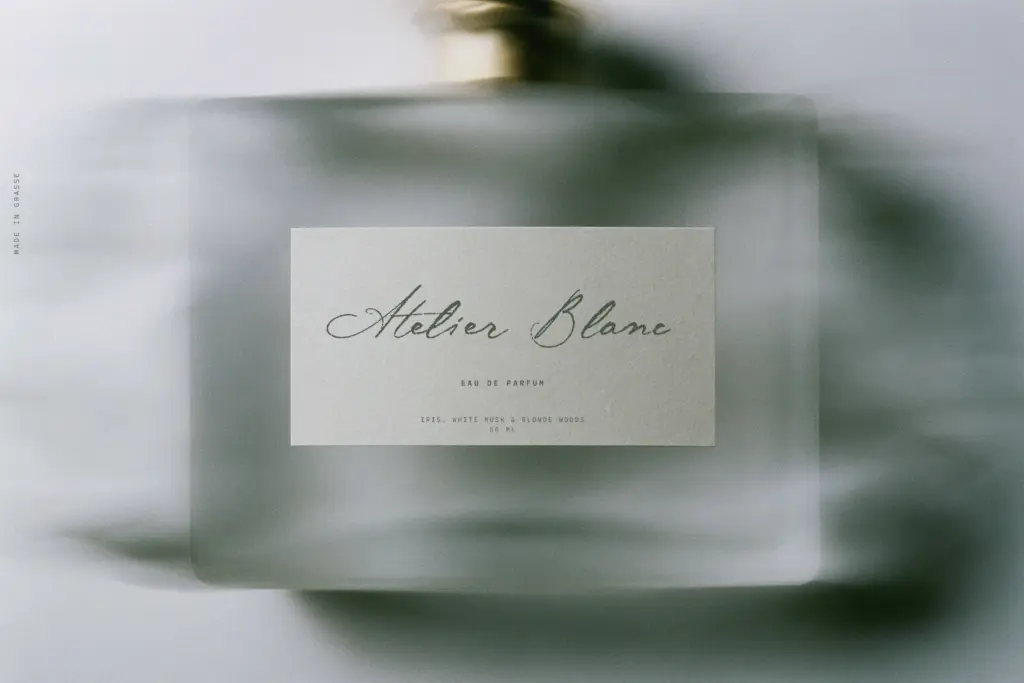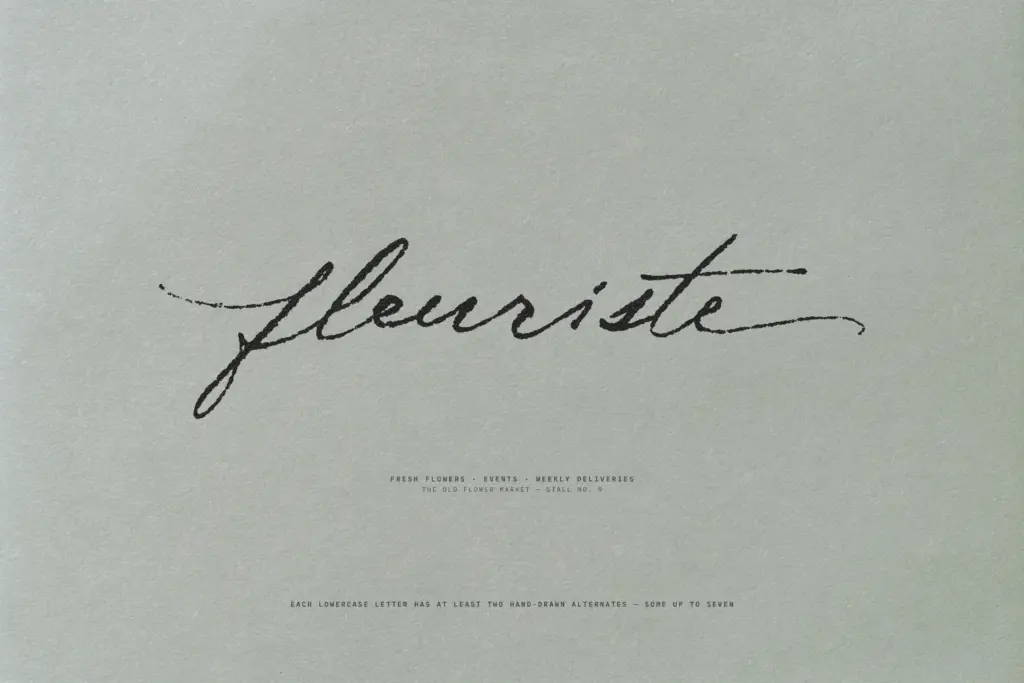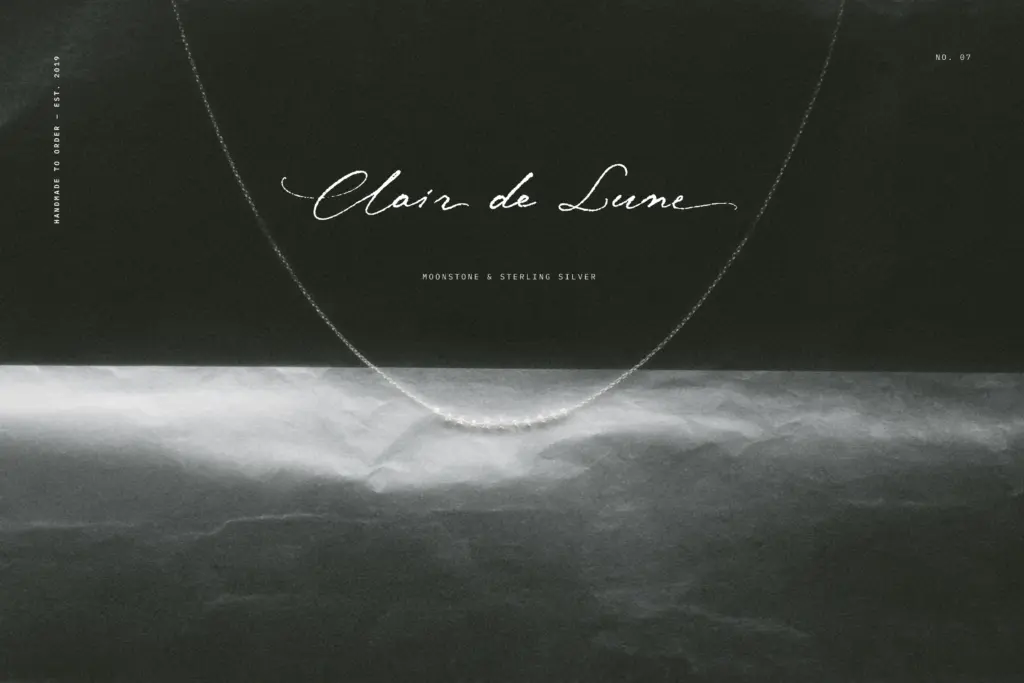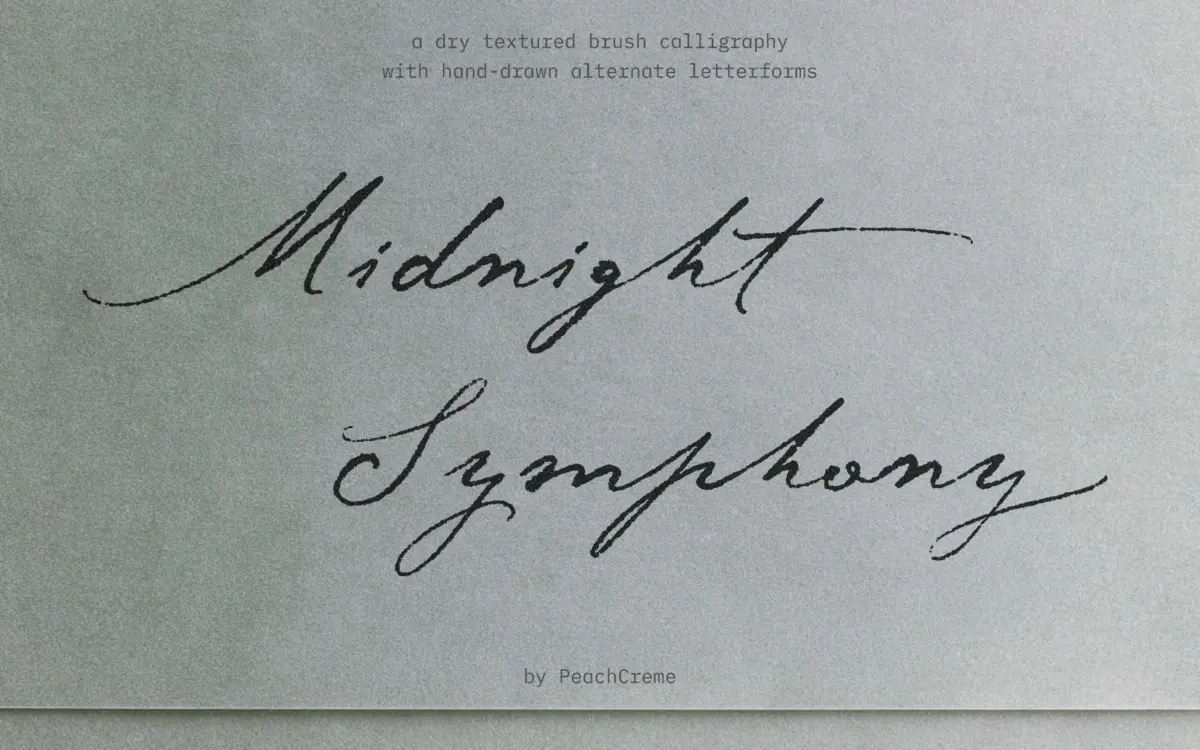
Midnight Symphony is a brush script built around the dry-brush effect rather than a smoothed-over imitation of one. The strokes carry visible breaks where the bristle would naturally skip and catch, and the letterforms keep that texture rather than filling it in digitally. The result reads as raw calligraphy rather than the polished, uniform-weight scripts that dominate the category. Contrast swings between thick, saturated downstrokes and thin, ink-starved connectors, giving the whole thing a tactile, worked-by-hand feel. It sits closer to nostalgic, rustic lettering than to luxury minimalism, and it wears that identity consistently across the character set rather than just in a few showpiece glyphs.
The alternate structure is the real substance of this release. With 115 lowercase alternates and 43 capital alternates spread across seven stylistic sets, most letters have two or three distinct forms to draw from, which matters a great deal in a script where repeated letters can otherwise flatten a layout into something obviously templated. The 15 double-letter ligatures (bb, ll, tt, and similar pairs) are a practical touch — double letters are where hand-lettered scripts usually break down into awkward, mechanical repetition, and having dedicated connections for them removes one of the more common tells that a script font was set rather than drawn. Because the texture is baked into the strokes rather than applied as a filter, it holds up reasonably well across sizes, though as with any dry-brush script the finer breaks in the ink are more visible — and more effective — the larger you set it. At small sizes the texture reads more as roughness than as brushwork, which is worth testing before committing to a layout.
This is a font for work that wants some grain in it: packaging for small-batch goods, editorial headlines with a handmade angle, logotypes for brands leaning into craft or vintage positioning, and any display setting where a slick, even script would feel out of place. The alternates make it genuinely usable for longer phrases — a product name, a tagline, a short wedding invitation line — without the repetition that plagues scripts with fewer variants. It’s less suited to body copy or anything that needs to be read quickly at small sizes, and the texture will fight with backgrounds that already have their own pattern or noise. Pair it with a plain sans or a quiet serif to let the brushwork carry the personality rather than competing with a second decorative face. On clean, high-contrast backgrounds — paper stock, solid color panels, simple photography — it does the job it was built for.
- 115 lowercase and 43 capital alternates genuinely reduce repetition across longer phrases
- Dry-brush texture is baked into the strokes rather than applied as a filter, so it stays consistent at display sizes
- Double-letter ligatures solve a common awkwardness in hand-lettered scripts
- Texture becomes noisy rather than expressive at small sizes
- Needs a plain, uncluttered background to avoid visual competition
Midnight Symphony delivers a script with real, unsmoothed texture and enough alternates to avoid the repetition that plagues most brush fonts. It's built for display and branding work rather than body text, and the texture demands a clean, cooperative background to read well. Within that lane, it's a considered, well-executed piece of lettering.